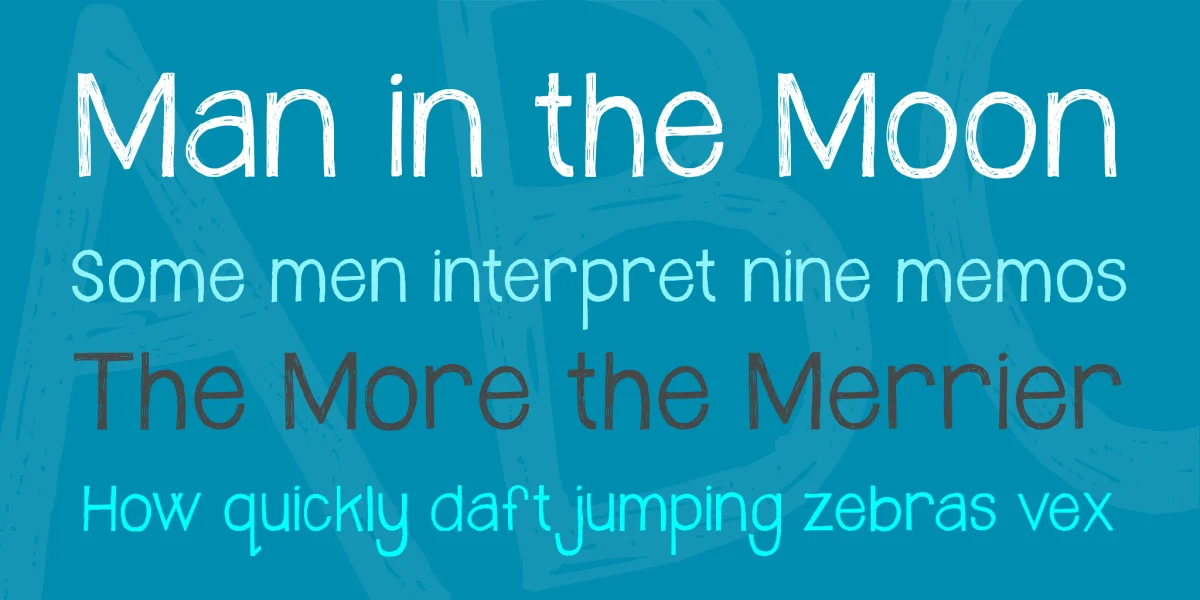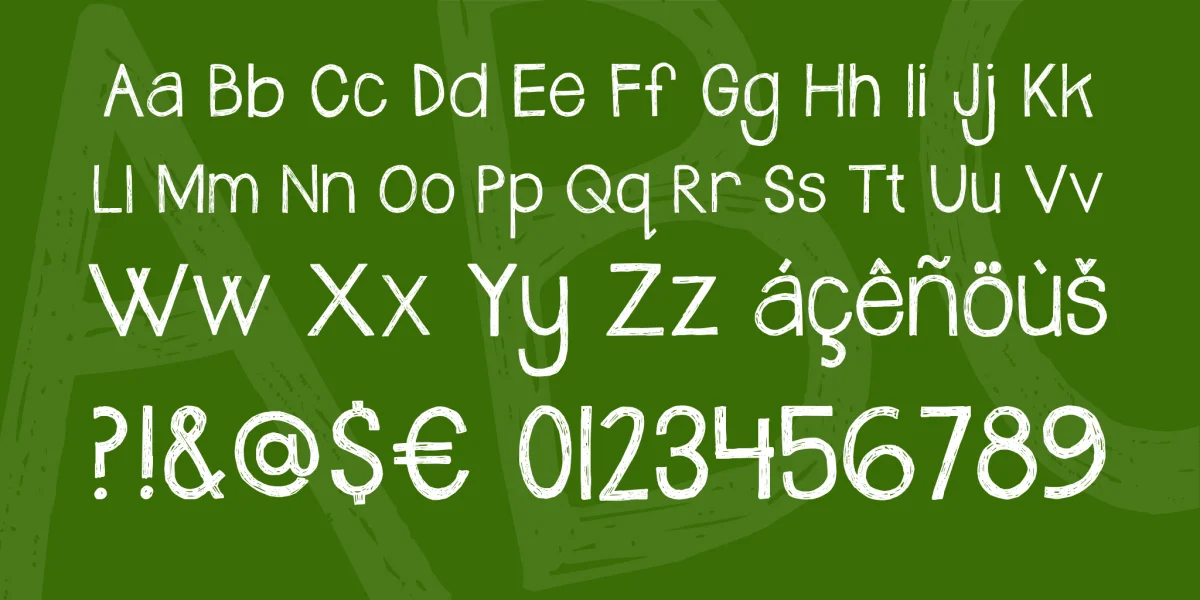
Bonus points if you know the inspiration of this one.
Yeah, the Hunger Games. I’m a little crazy about the books and can’t wait to see the movies- which is saying something because I hate movies!